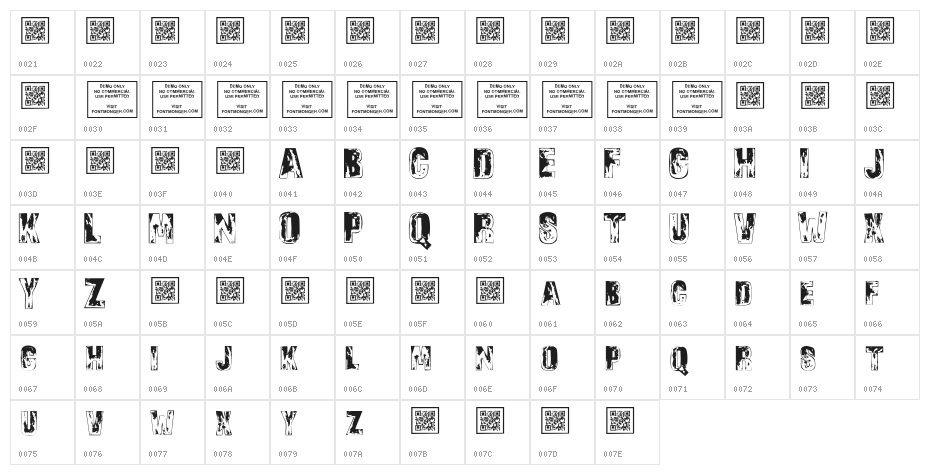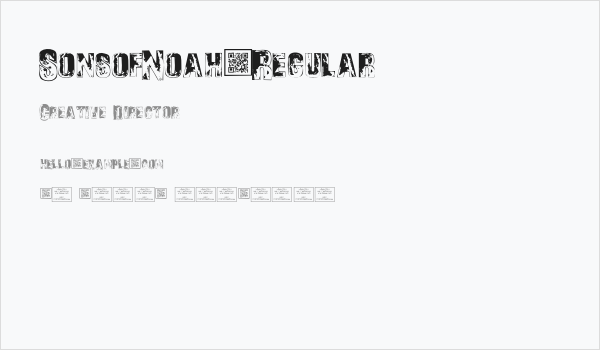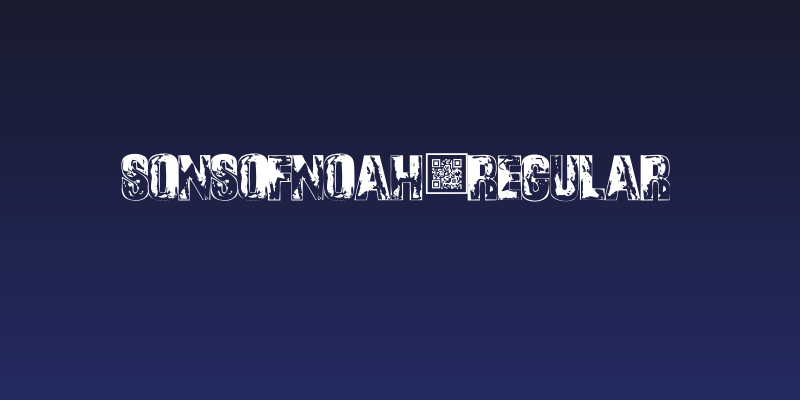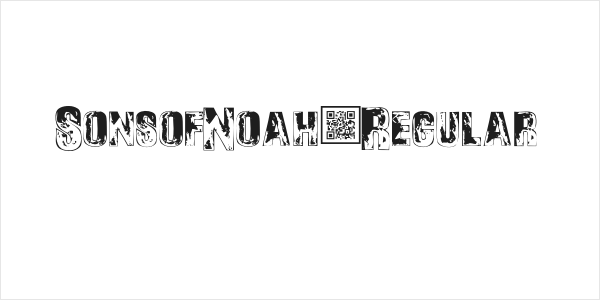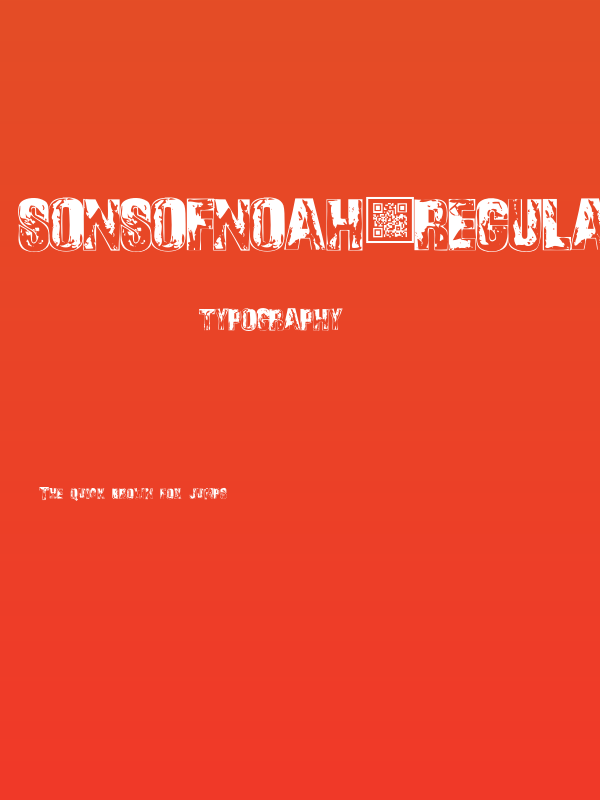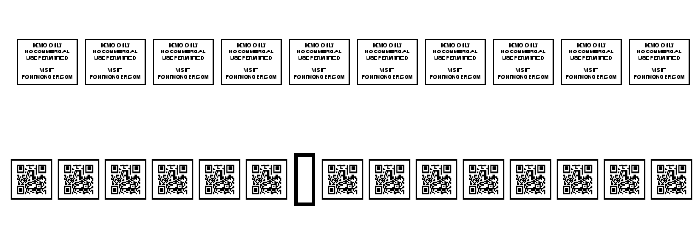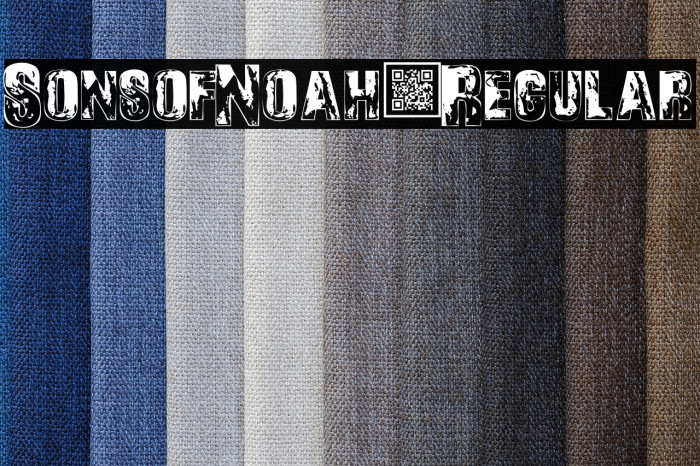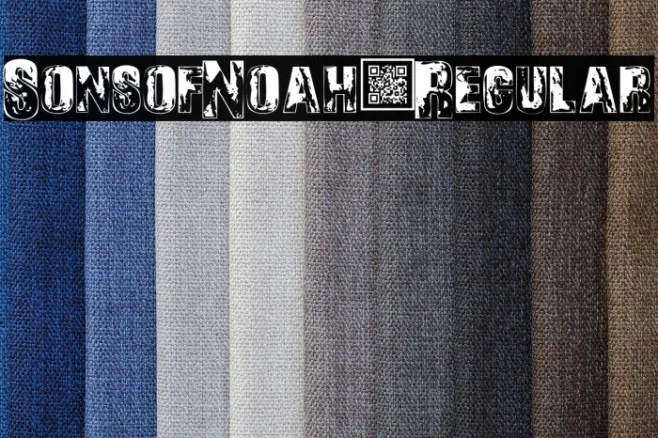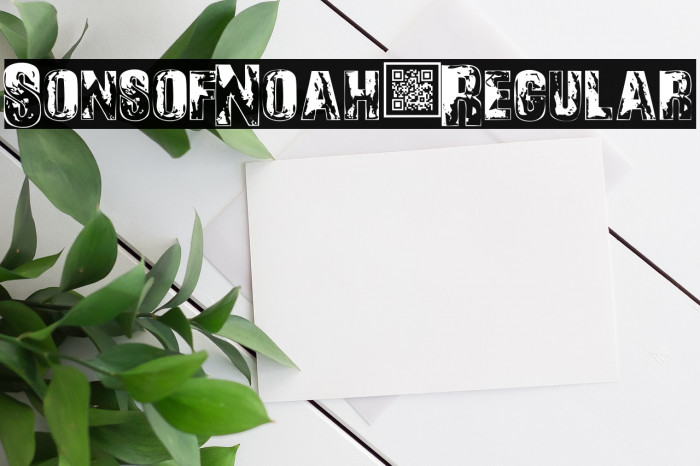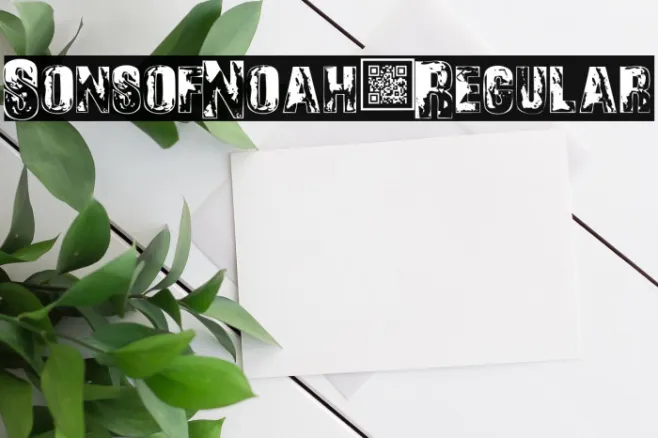
SonsofNoah-Regular Font
SonsofNoah-Regular Description
This font features a bold and distressed style, characterized by its rough, textured appearance. The letters are uppercase and exhibit a grunge aesthetic, with irregular edges and a worn-out look that gives it a rugged and edgy feel. The design is highly decorative, making it stand out with its unique and artistic flair. The font's boldness and heavy weight contribute to its strong visual impact, making it suitable for projects that require a striking and unconventional typeface.
| Use Case | Headlines, Posters, Logos |
| Proposed Projects | Ideal for album covers, posters, urban-themed designs, and any project needing a bold, artistic touch. |